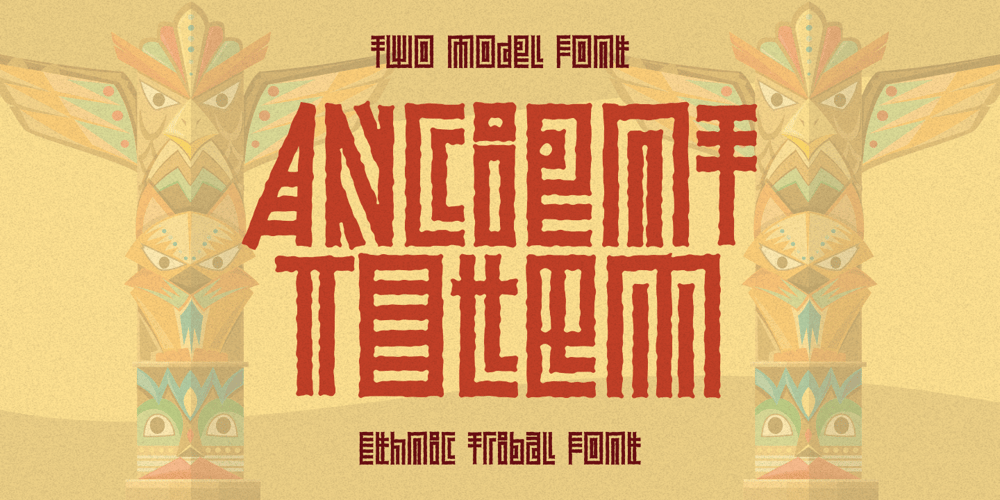
Ancient Totem Two
Ancient Totem Two font
Ancient Totem Two Font Family was designed by Putra Novembria Candra Kusuma and published by Putracetol. Ancient Totem Two contains 4 styles and family package options. Ancient Totem is Ethnic Tribal Font With Two Model Font. Ancient Totem has a fun character and display typeface. Ancient totem is a font inspired by traditional tribal and ethical styles.This font is perfect for projects with tribal and ethnic themes. But this font is also suitable for logos, branding, greeting cards, invitation cards, advertisements, titles, healines, book titles, stickers, packaging, quotes, posters, t-shirts/apparel, billboards and others.This font can be used and supported in various programs and OS, such as procreate, cricut, windows, macOS and others. This font is also support multi language.